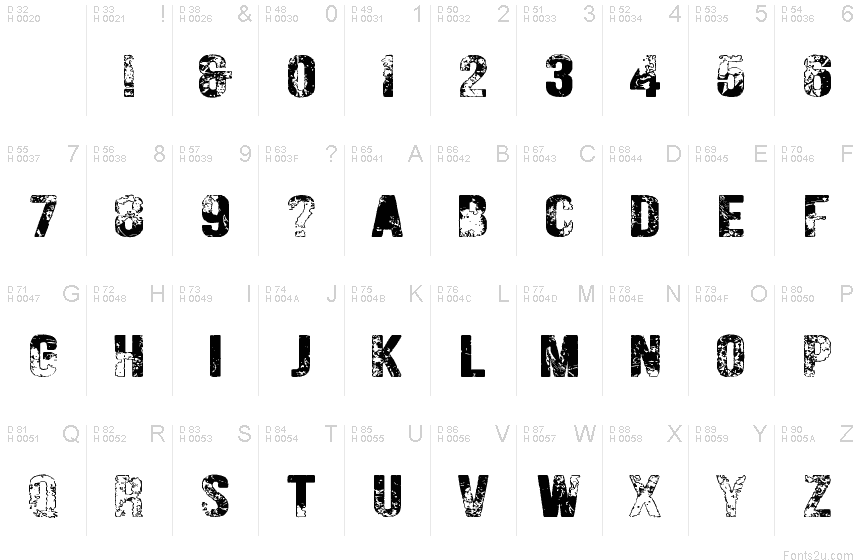
Hungry Ghosts by Anchor Fonts is a free eroded display font with broad, imposing capitals and a severely battered surface. Dense silhouettes keep the lettering forceful, but the torn patches and scratched channels give each form the look of weathered paint or damaged print.
Designers working in horror, punk, or underground entertainment will find it suited to posters and album artwork. It also fits distressed apparel graphics and Halloween event material, where the broken texture can become part of the illustration. Its clearest branding role is for bands, haunted attractions, or streetwear labels seeking a rough, recognizable wordmark.